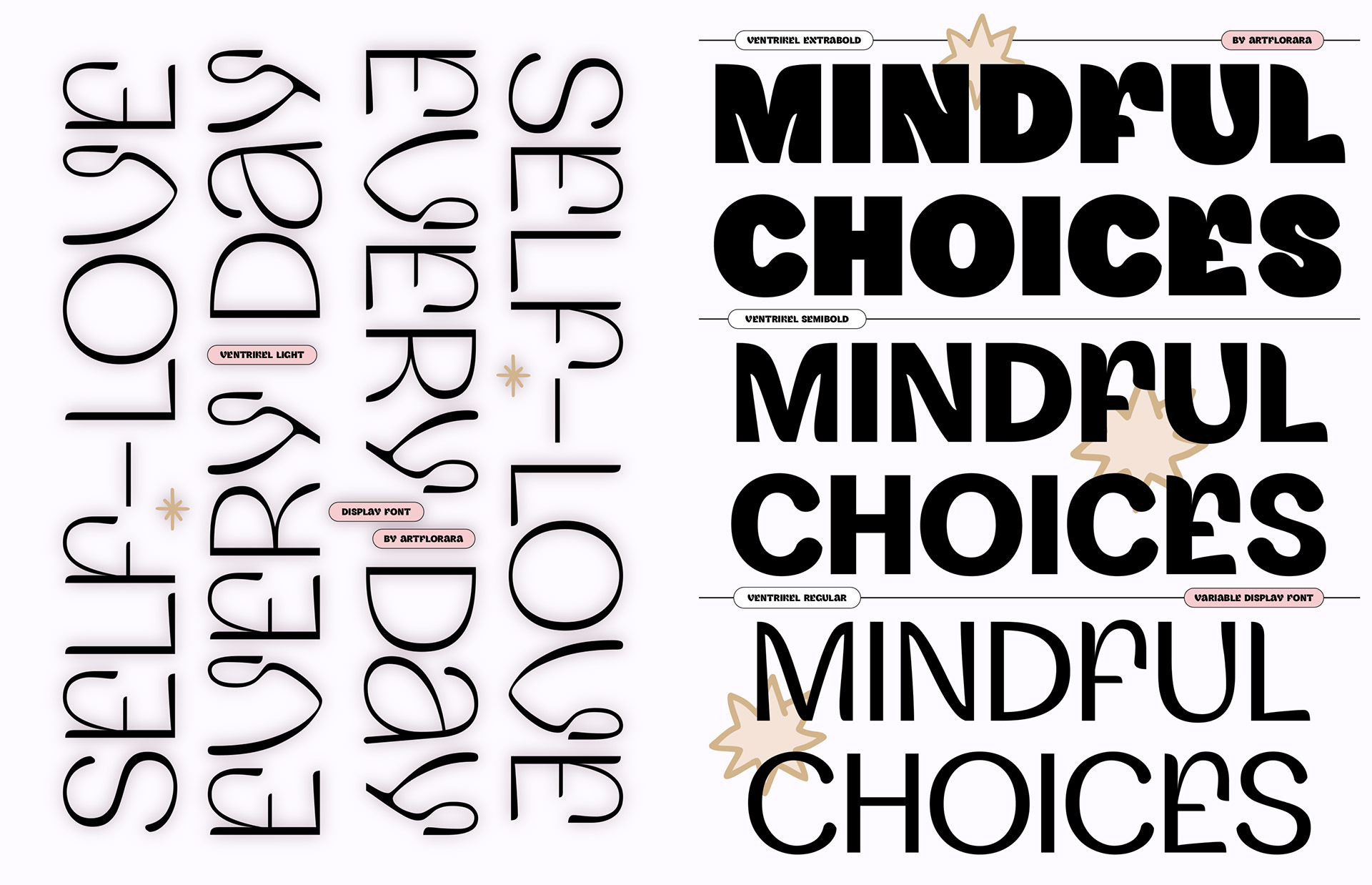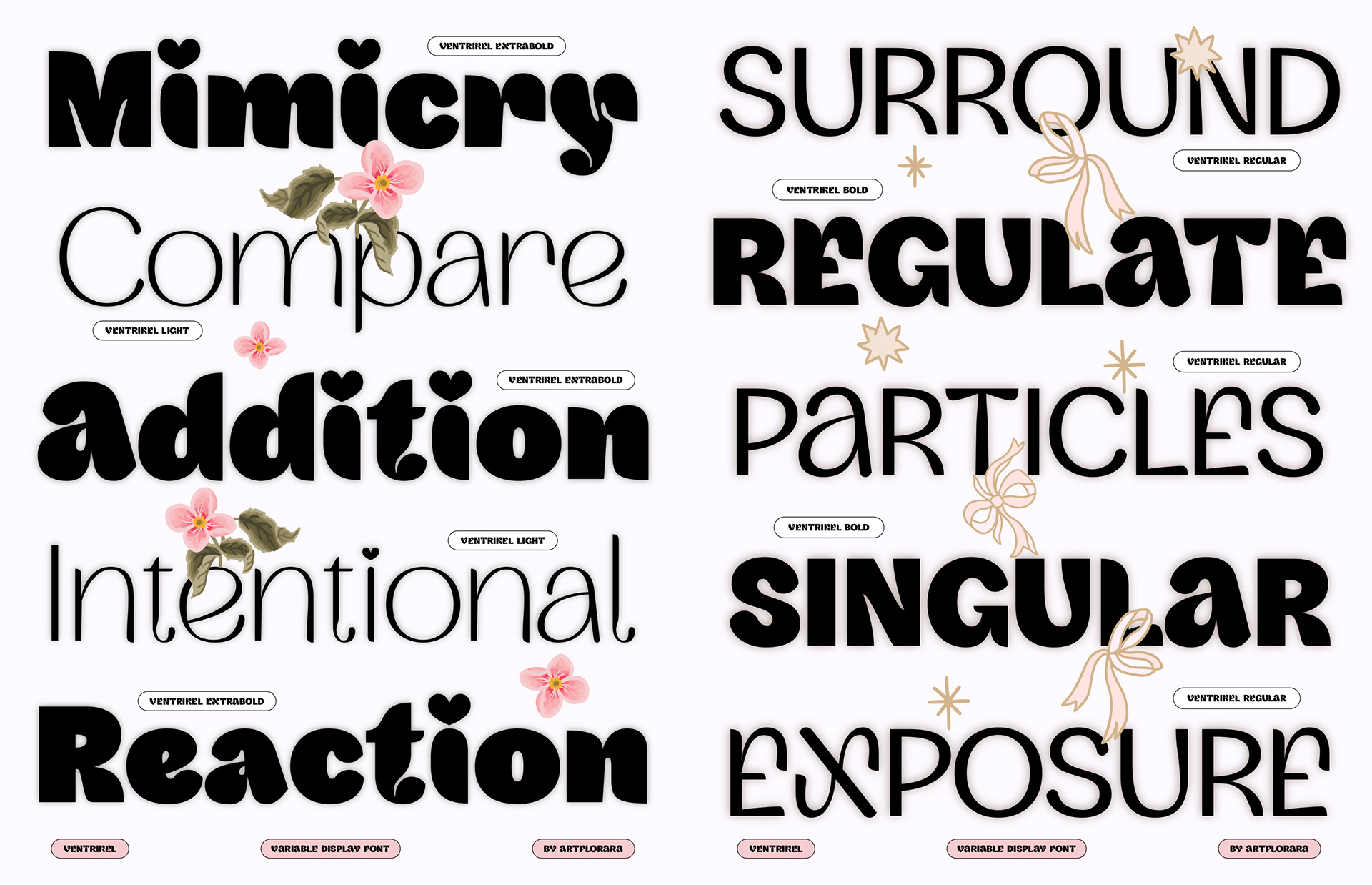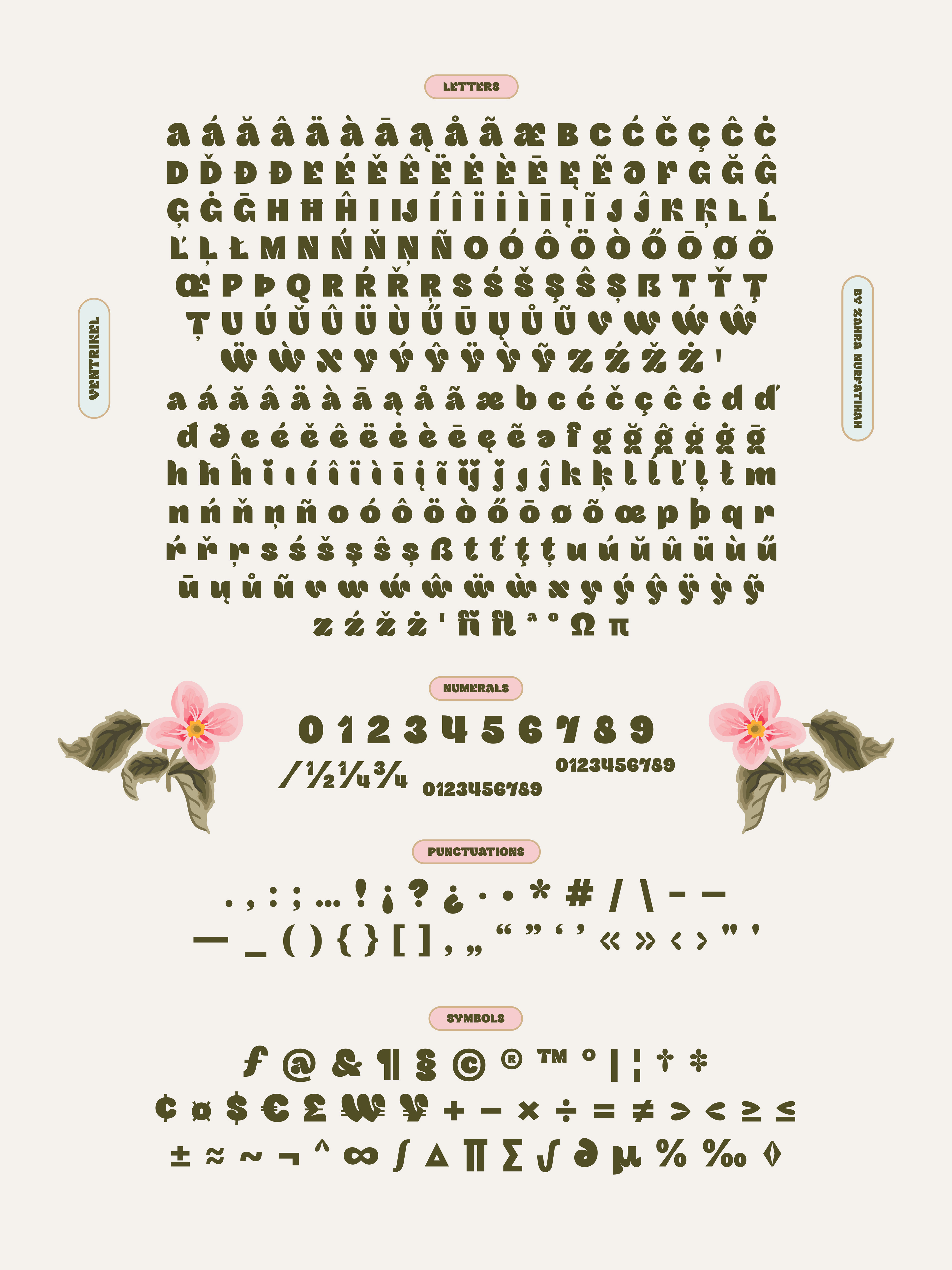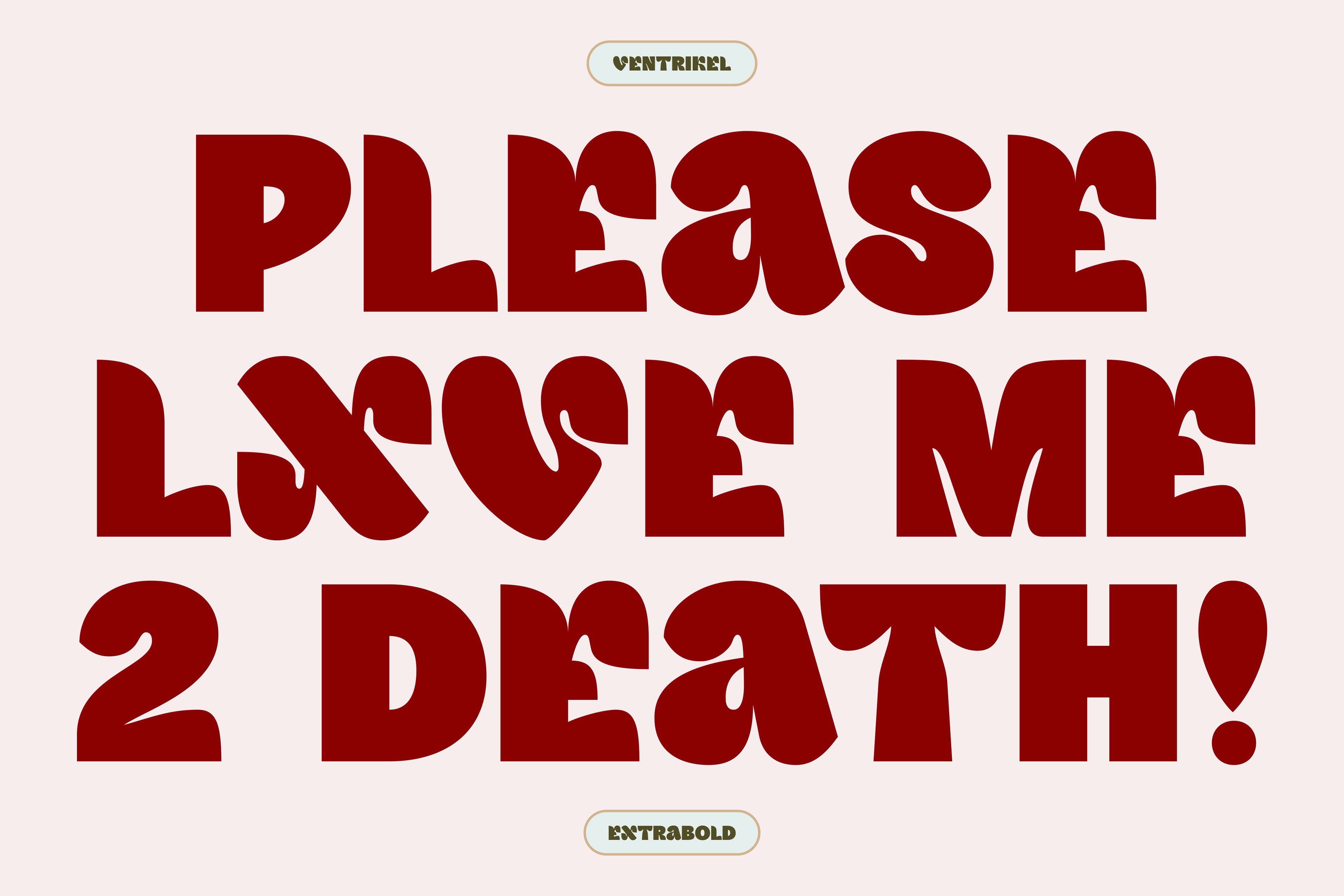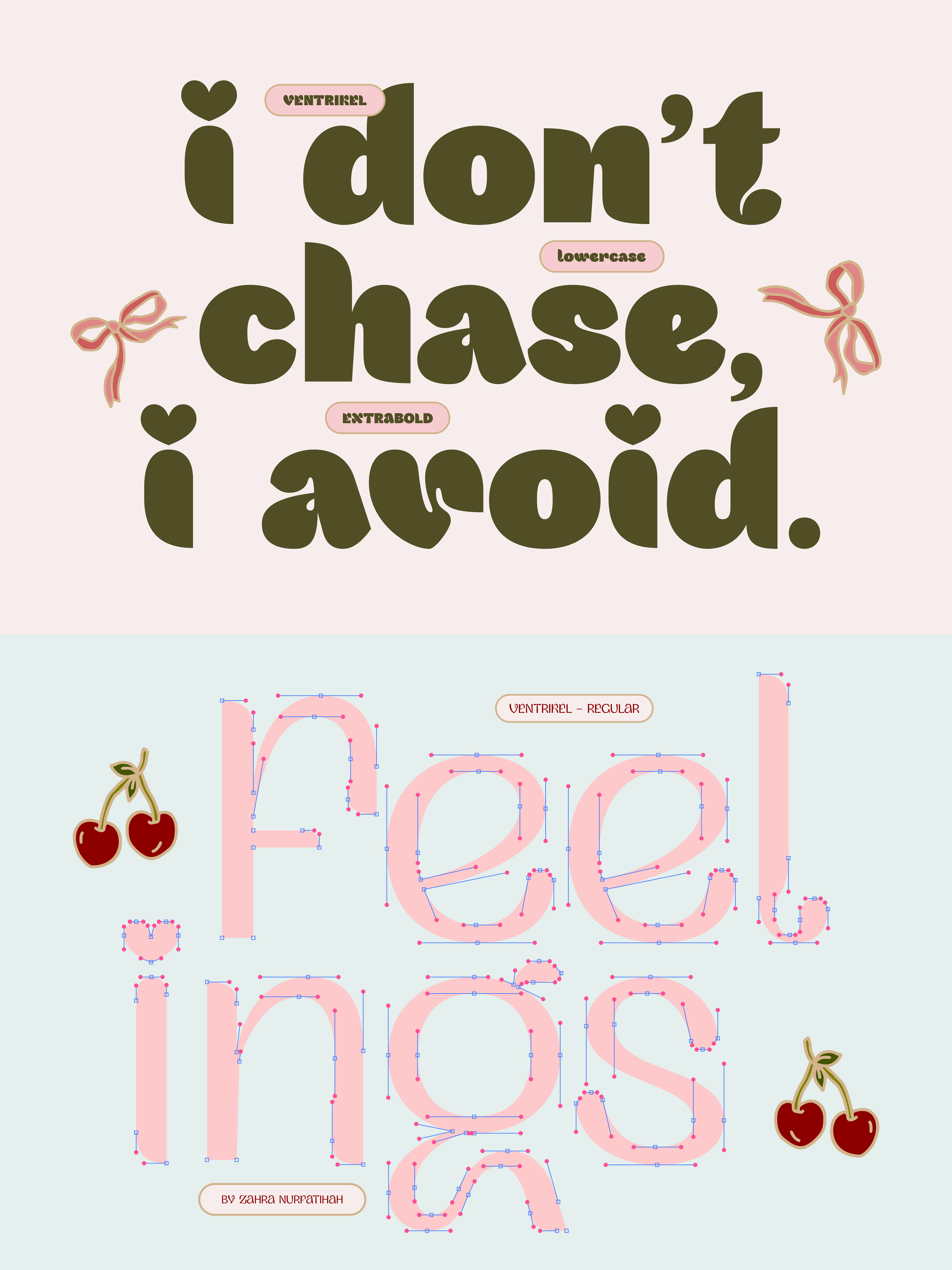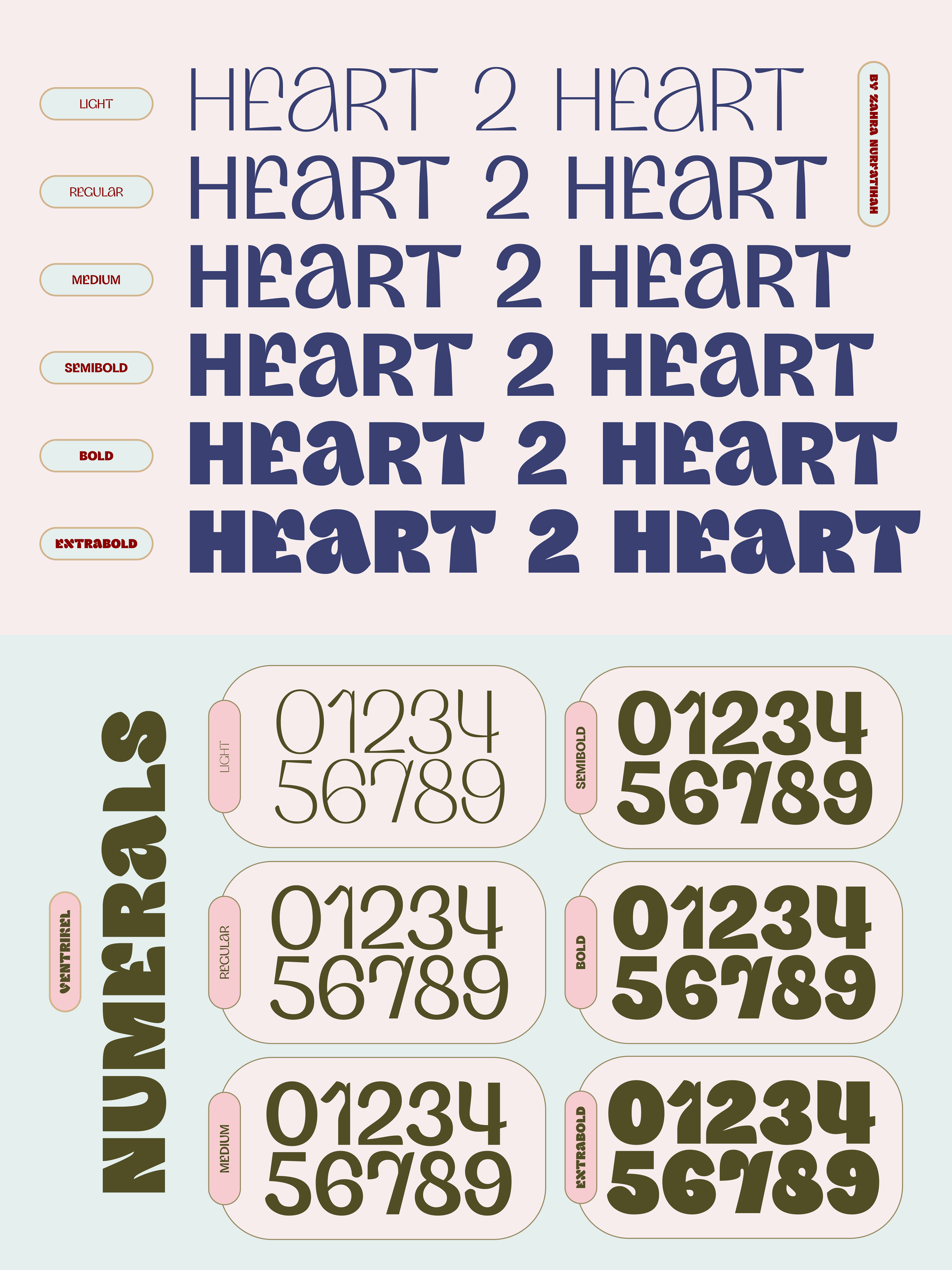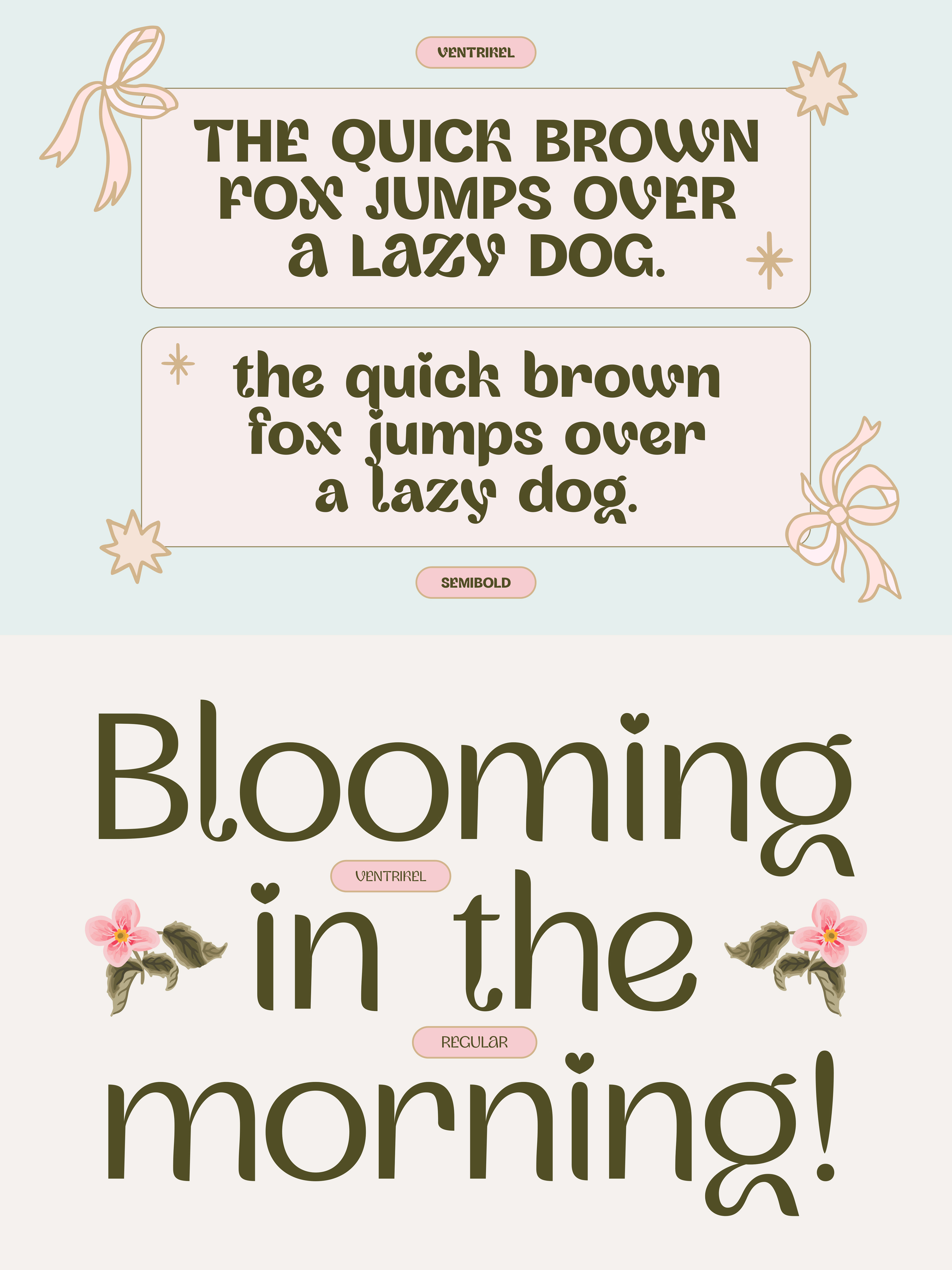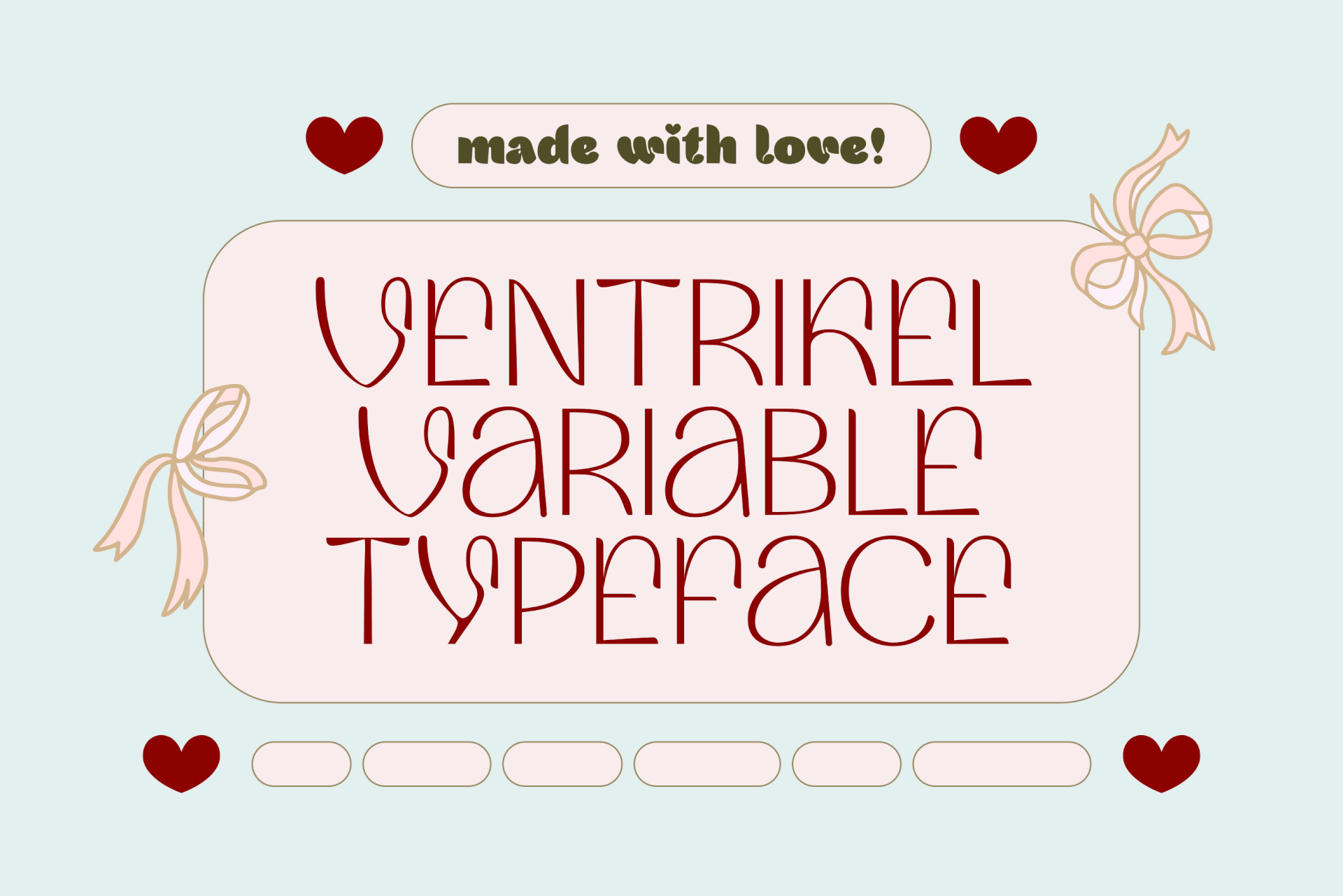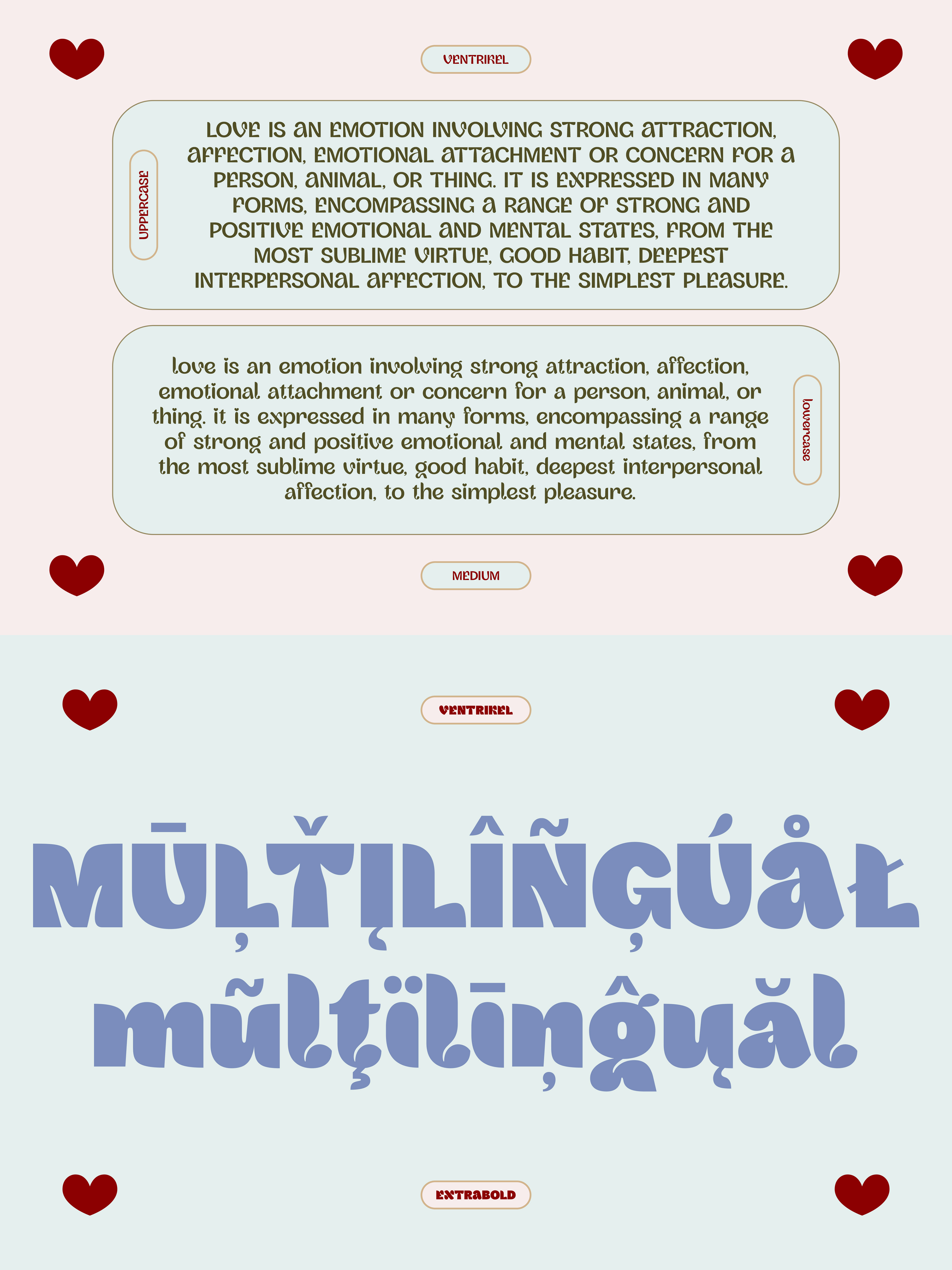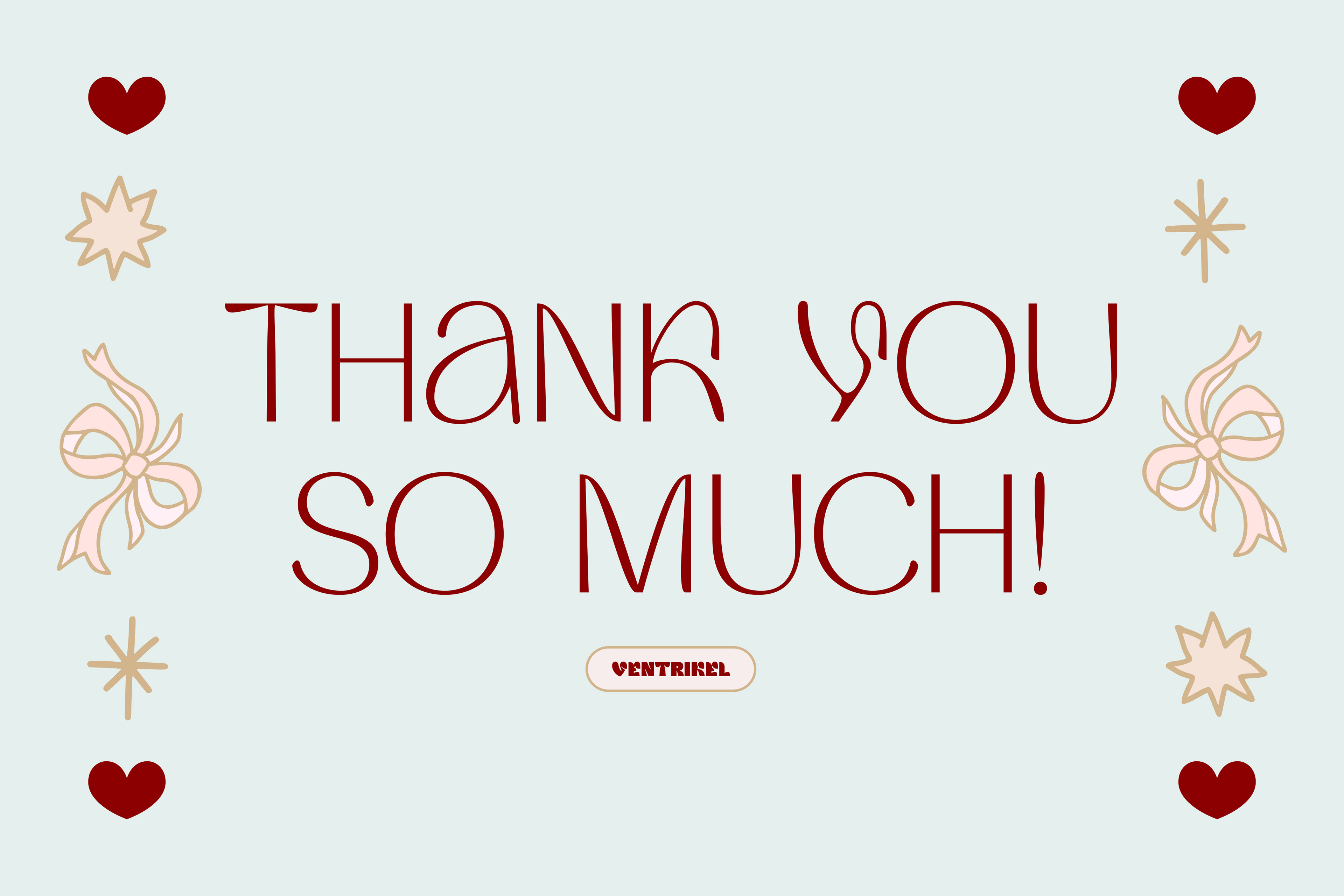
VENTRIKEL is a unique and whimsical display sans serif typeface, created to portray the playfulness of romance. Its name is derived from the word ventricle, referring to the two main chambers of the heart, left and right. The font features a distinctive set of characters that subtly resemble the shape of a heart or a symbol of love, most notably in the letters v, w, y, as well as in the tittle of the lowercase i and j.